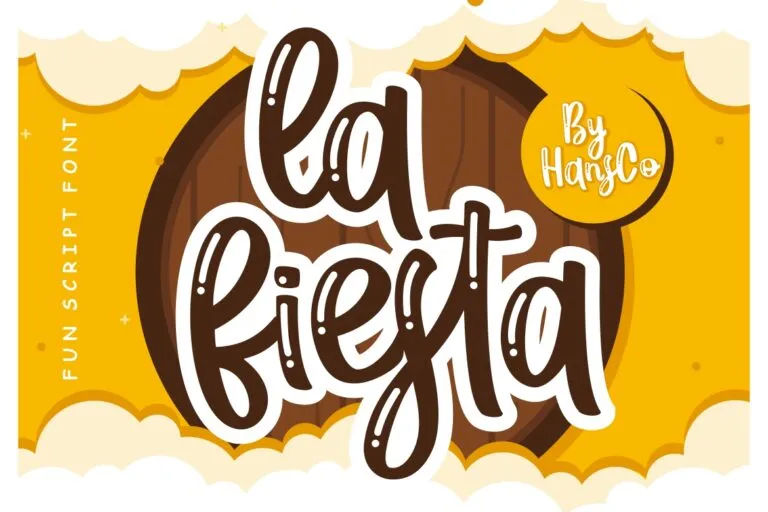
Playful Fonts: 15 Best Options and When to Use Them
From a designer’s perspective, playful fonts are used to create visuals that feel friendly, expressive, and approachable. According to Counter Print, playful typography emphasizes expressive letterforms that focus on emotional connection rather than strict formality.
In this article, you’ll explore 15 best playful fonts and when to use them, helping graphic designers select fonts that align with brand objectives while maintaining visual consistency.
- Playful fonts emphasize friendliness, informality, and emotional connection through expressive letterforms.
- Each playful font has a specific mood and best-use scenario, from kids’ branding to casual marketing.
- Consistent font selection supports stronger brand recognition and visual harmony.
Understanding Playful Fonts and Their Defining Features
Playful fonts are typefaces designed to communicate a sense of friendliness, creativity, and approachability through expressive letterforms. They often feature relaxed structures, rounded edges, irregular spacing, or varying stroke weights that move away from rigid, formal typography styles commonly used in corporate communication.
To better understand what is a playful font and its characteristics, it is important to look at how these fonts influence emotional perception. They are typically used to create a cheerful tone, support storytelling, and help brands connect with audiences in a more personal and engaging way.
15 Best Playful Fonts and When to Use Them
Below are curated playful fonts from Hans Co Studio’s playful and kid font categories. Each font is reviewed based on its character, mood, and ideal application.
1. Dog Style
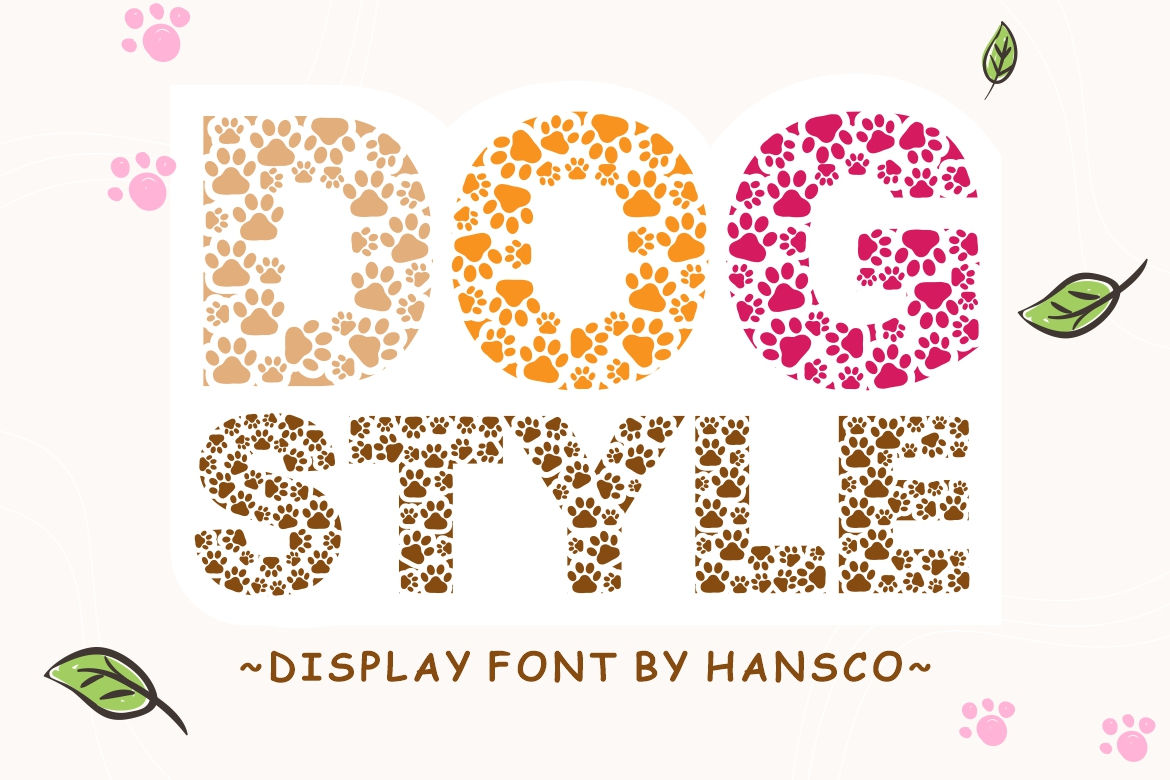
Dog Style is a decorative font with a cheerful, informal structure that feels natural and expressive. It fits best in children’s projects, learning materials, and creative visuals that require a friendly and engaging tone.
2. Little Witches
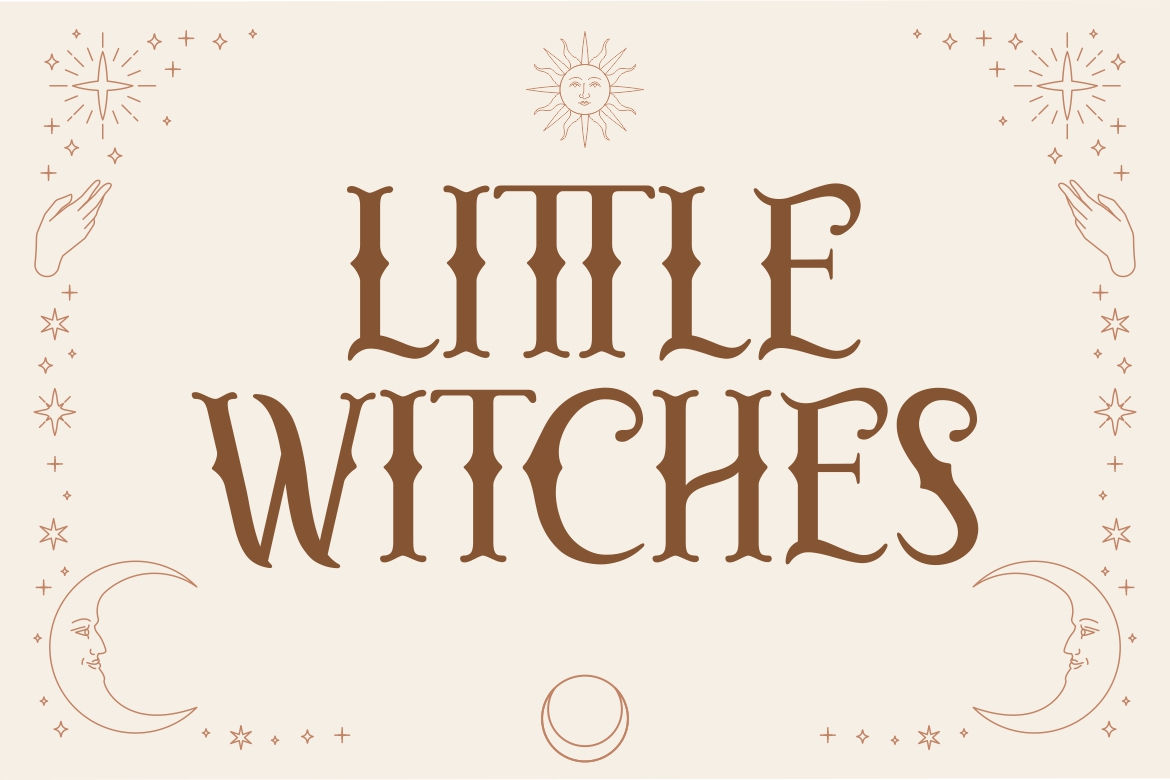
Defined by strong shapes and playful irregularities, Little Witches delivers a charming yet mysterious visual presence. The font works especially well for craft-based designs and handmade items that aim to capture a magical or fantasy-inspired mood.
3. Magic Unicorn
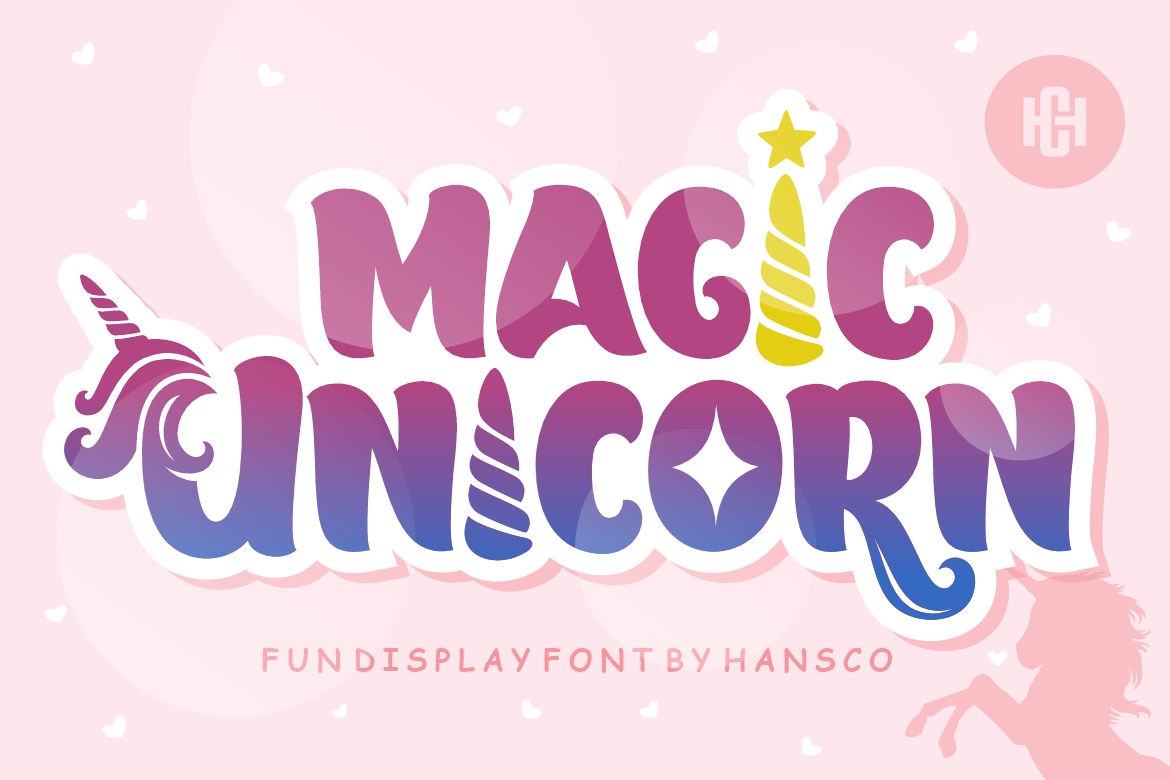
With its cheerful curves and expressive shapes, Magic Unicorn delivers a lighthearted and authentic visual tone. The font is particularly well suited for kids-focused designs where friendliness and creativity are key.
4. Mermaid
Mermaid features smooth, playful letterforms with a youthful charm that feels light and refreshing. The rounded shapes and relaxed structure give the font a cheerful personality, making it especially suitable for party invitations, swimming gatherings, and designs that aim to feel fun, social, and full of positive energy.
5. Lover
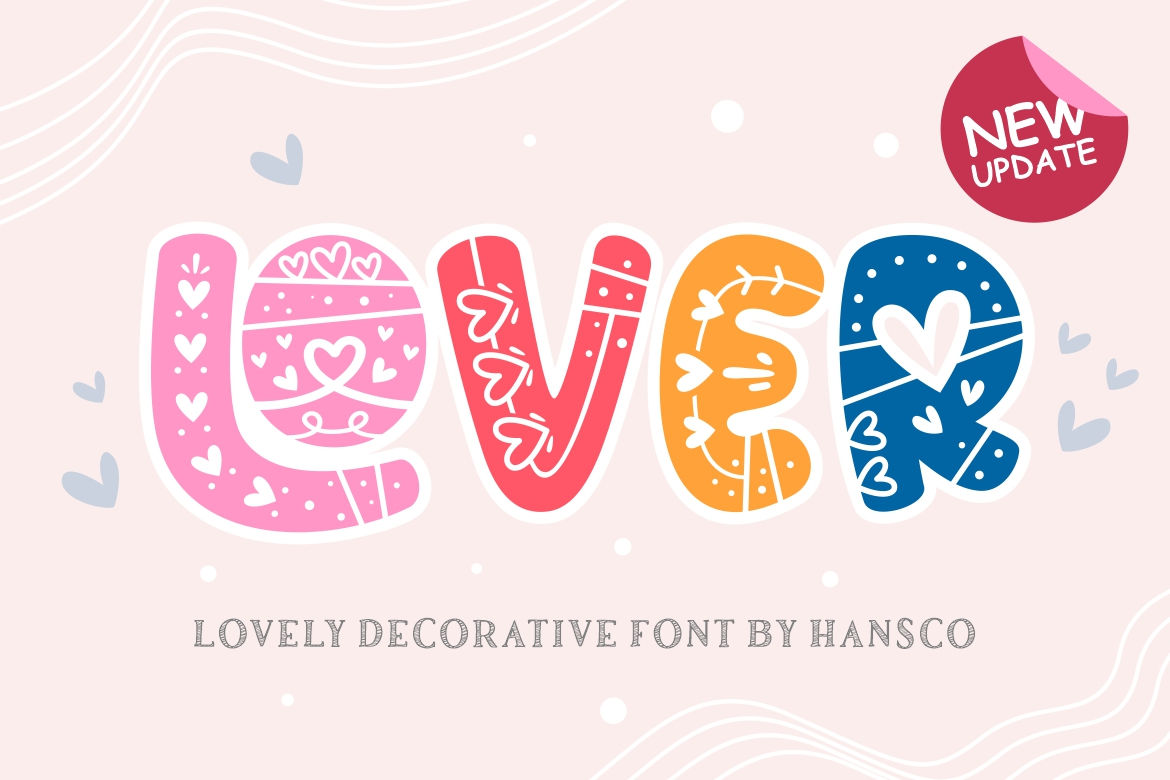
Lover brings a sense of friendliness and visual comfort through its decorative yet readable forms. From a branding perspective, it supports creative projects and children-oriented content that want to feel welcoming, cheerful, and emotionally engaging.
6. Dino Saur
Dino Saur brings imaginative energy through confident letterforms and whimsical dinosaur motifs. It’s an excellent choice for book covers, event posters, and playful branding where creativity, charm, and visual appeal are essential.
7. Kayla Story
Kayla Story is a bold script font featuring delicate swashes and a smooth flow. It fits naturally in craft-based designs and creative projects that require a touch of elegance and personality.
8. Hi Christopher
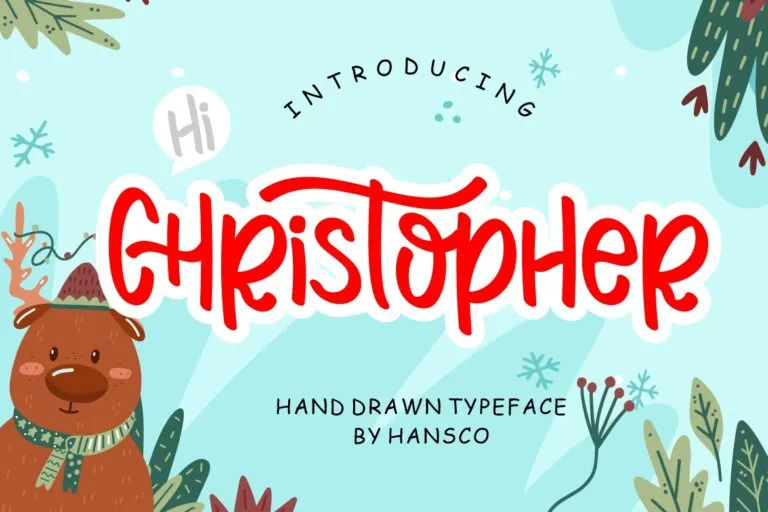
With its loose strokes and playful rhythm, Hi Christopher delivers a warm and cheerful visual tone. The font works well across digital and print designs such as websites, logos, and social graphics where an approachable style is needed.
9. Nightmare
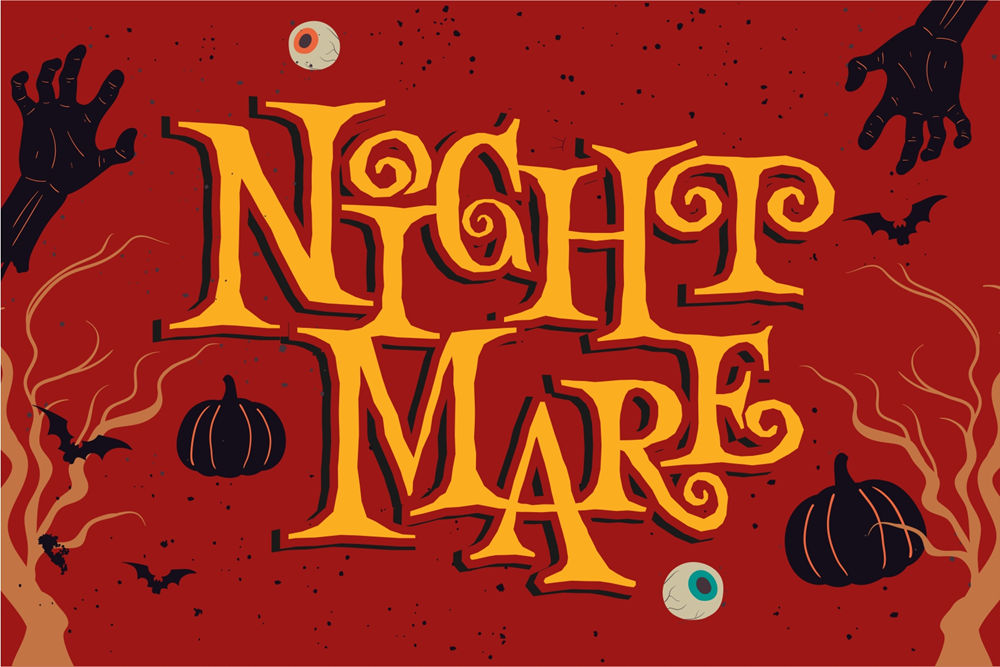
Nightmare is a playful duo font that pairs bold display letterforms with themed dingbats, creating a fun yet spooky visual style. Its horror-inspired character can be used for Halloween designs, themed posters, and creative projects that need a lighthearted sense of fright.
10. Snow Bold
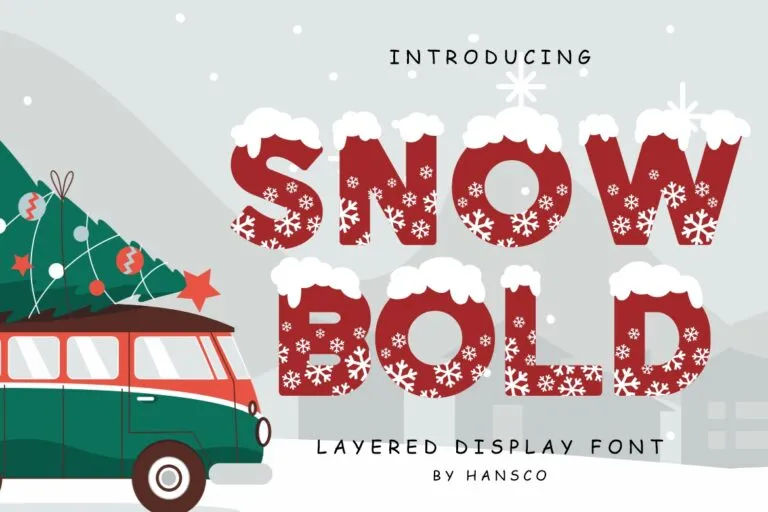
Snow Bold features chunky, decorative letterforms with a cute and distinctive personality. Its strong shapes and winter-inspired feel make it an excellent choice for holiday designs, seasonal promotions, and festive visual projects.
11. Winter
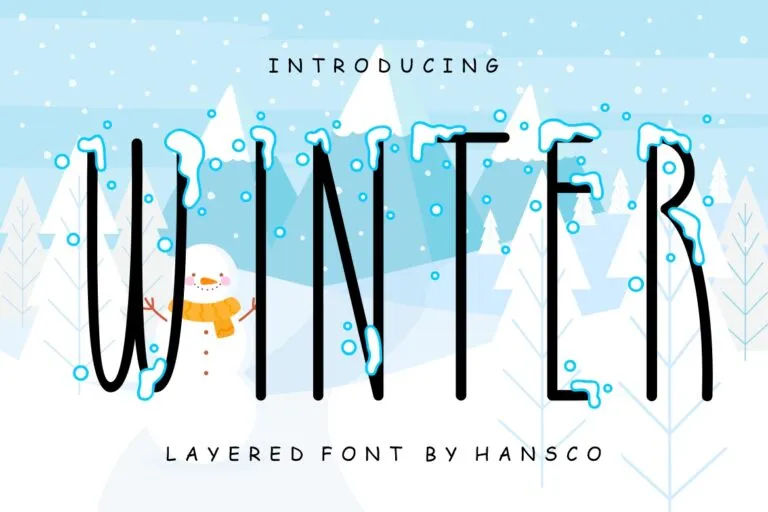
Winter captures a quiet seasonal charm through straightforward letterforms and subtle personality. It’s an ideal choice for designs that aim to communicate the winter atmosphere without relying on heavy decoration.
12. Let’s Espresso
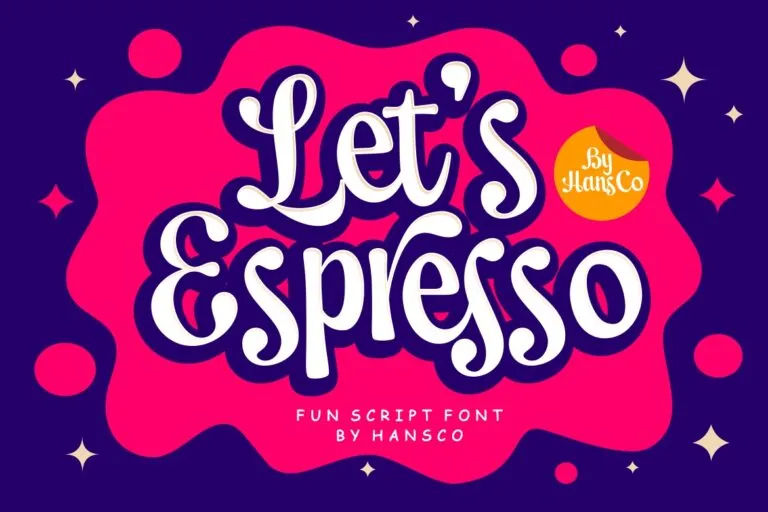
Defined by smooth strokes and water-splash terminals, Let’s Espresso delivers a playful yet elegant handwritten style. The font works especially well for food and beverage visuals, lifestyle branding, and designs that benefit from a warm, creative tone.
Find Playful Fonts That Balance Personality and Usability
Well-crafted playful fonts balance expressive character with technical structure, allowing them to perform consistently across branding, packaging, editorial layouts, and digital design without losing clarity or personality.